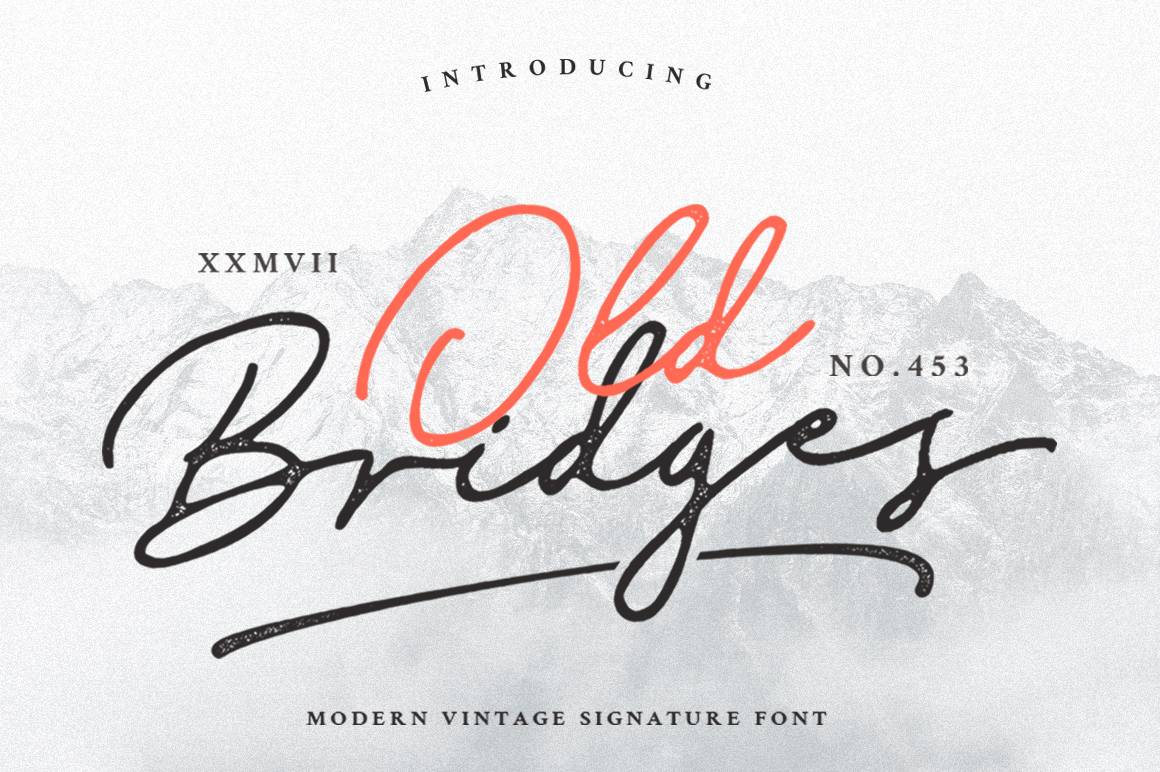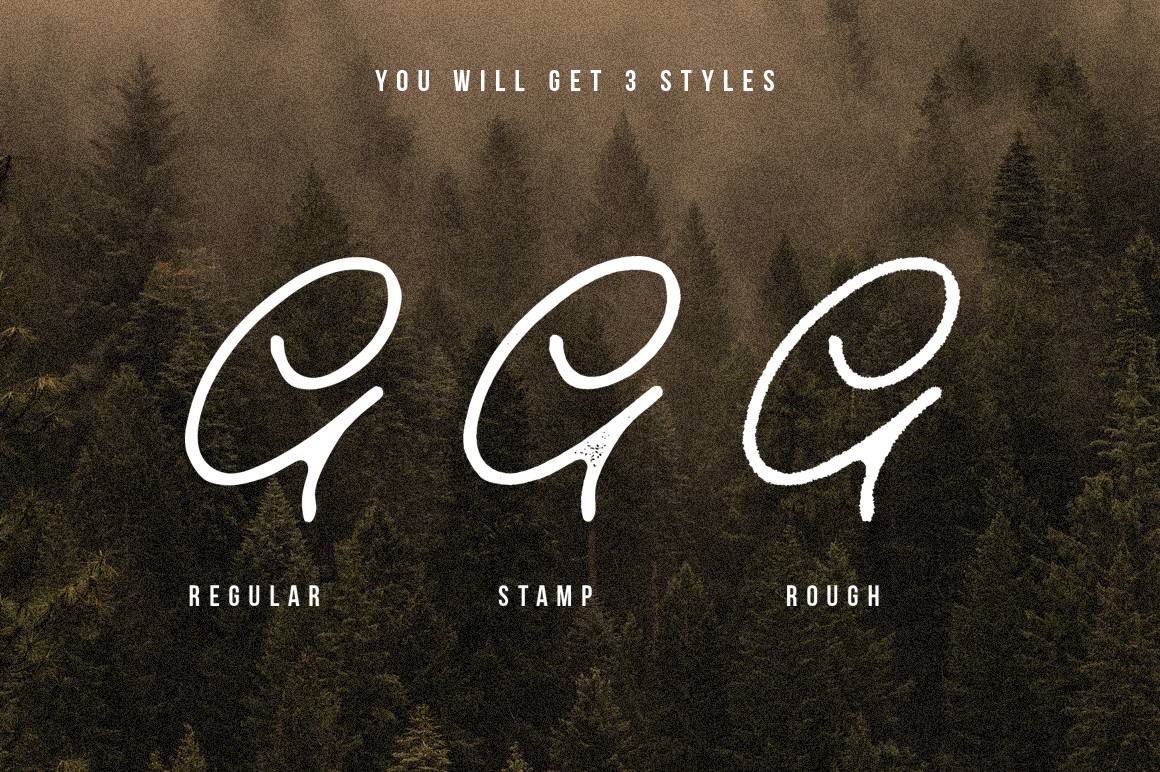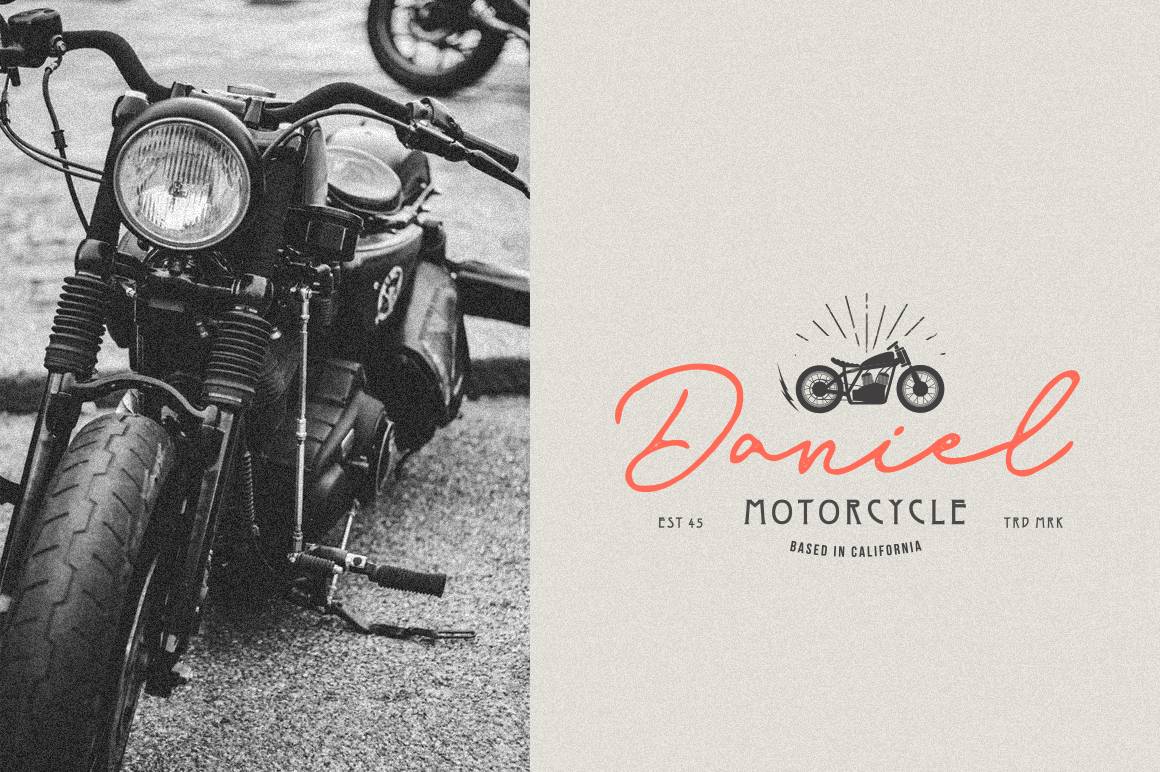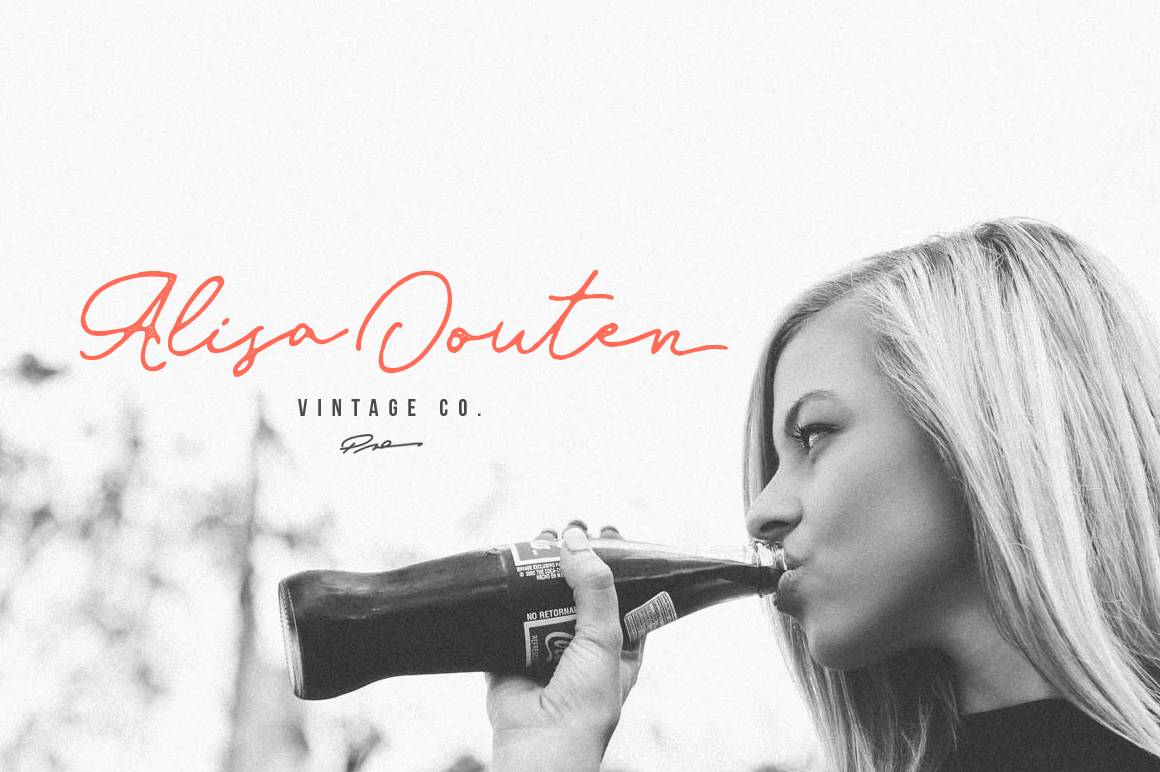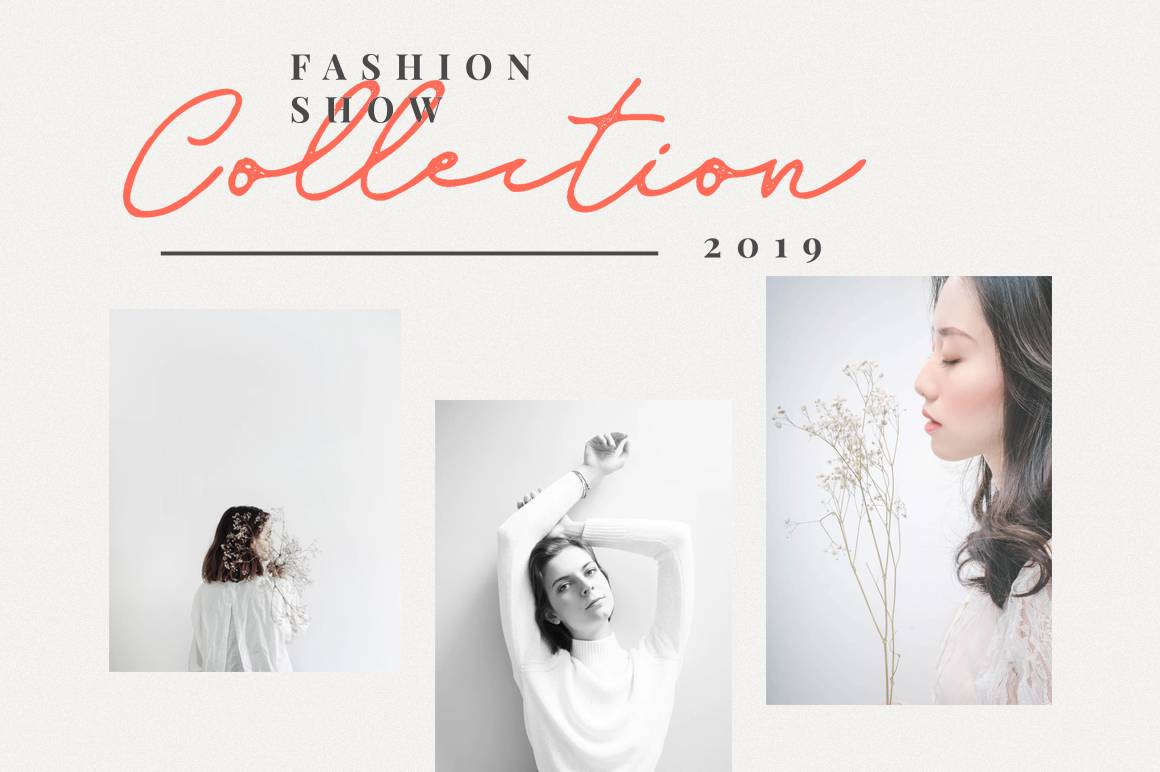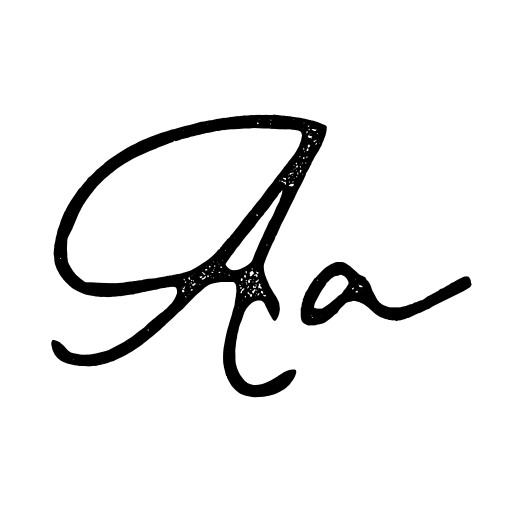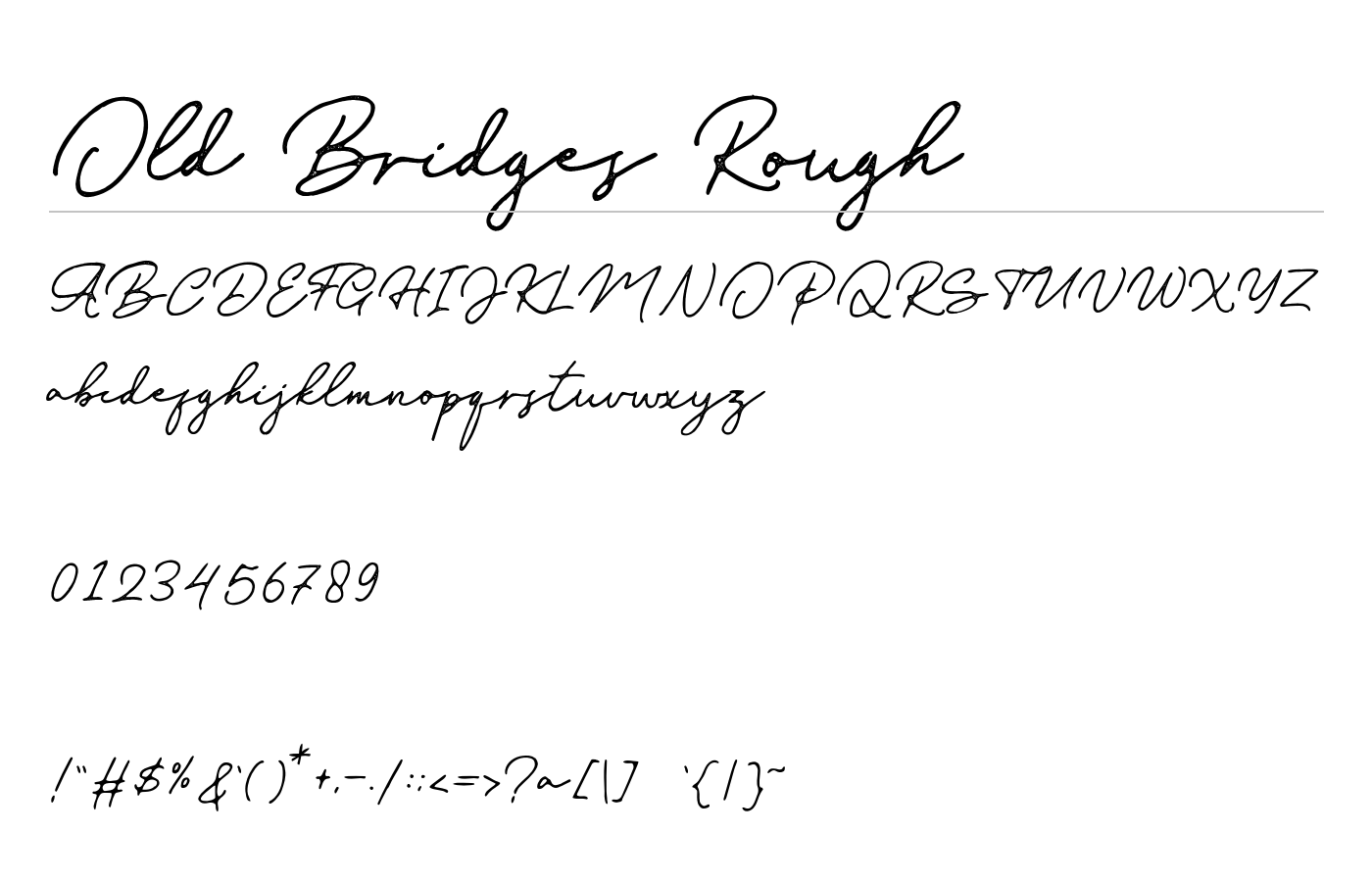
Old Bridges is an elegant handwritten script font with a rough, textured style that adds a personal and artistic touch. Its light weight and fluid, natural strokes make it ideal for creative branding, invitations, and expressive design projects where a casual yet sophisticated feel is desired. This font works well in headlines and short texts where a charming, handcrafted look can shine.
Old Bridges
About Old Bridges
| Font family | Old Bridges |
| Designer | Candra ~ Vultype Co |